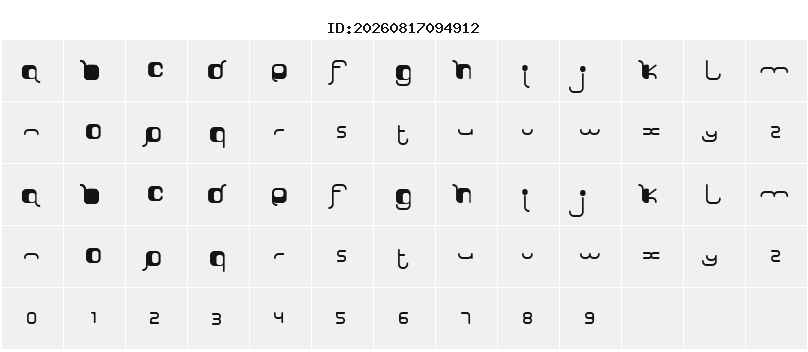
Sorry Luthi Preview
• Font Name: Sorry Luthi
• Full Font Name: Sorry Luthi
About Sorry Luthi.ttf
Sorry Luthi.ttf is a modern, elegant sans-serif font designed for ultimate readability and visual harmony. Perfect for branding, headlines, web design, and print materials.